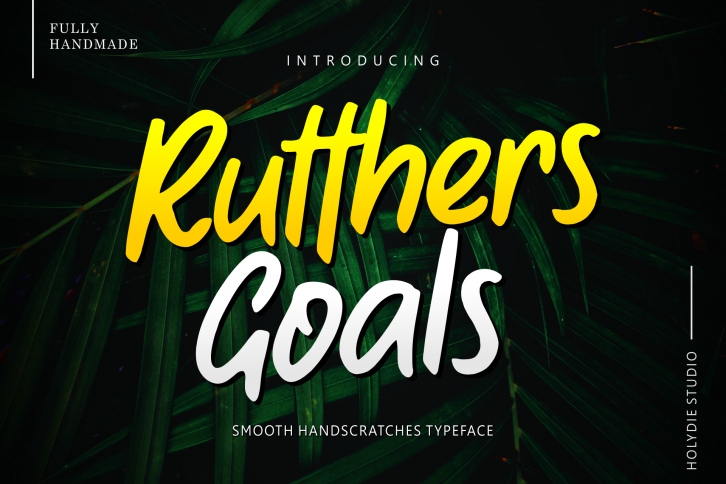
Rutthers Goals is a great font that was designed by Holydie Studio. Imagine the amount of combinations you can create using this font! The archive is 11.32 MB and it was released on October 28, 2019. Rutthers Goals looks beautiful on wedding invitations, greeting cards, logos, posters, labels, t-shirt designs, logos, business cards and is perfect for use in ink or watercolor works, fashion, magazines, packaging and food menus, children's books and more!